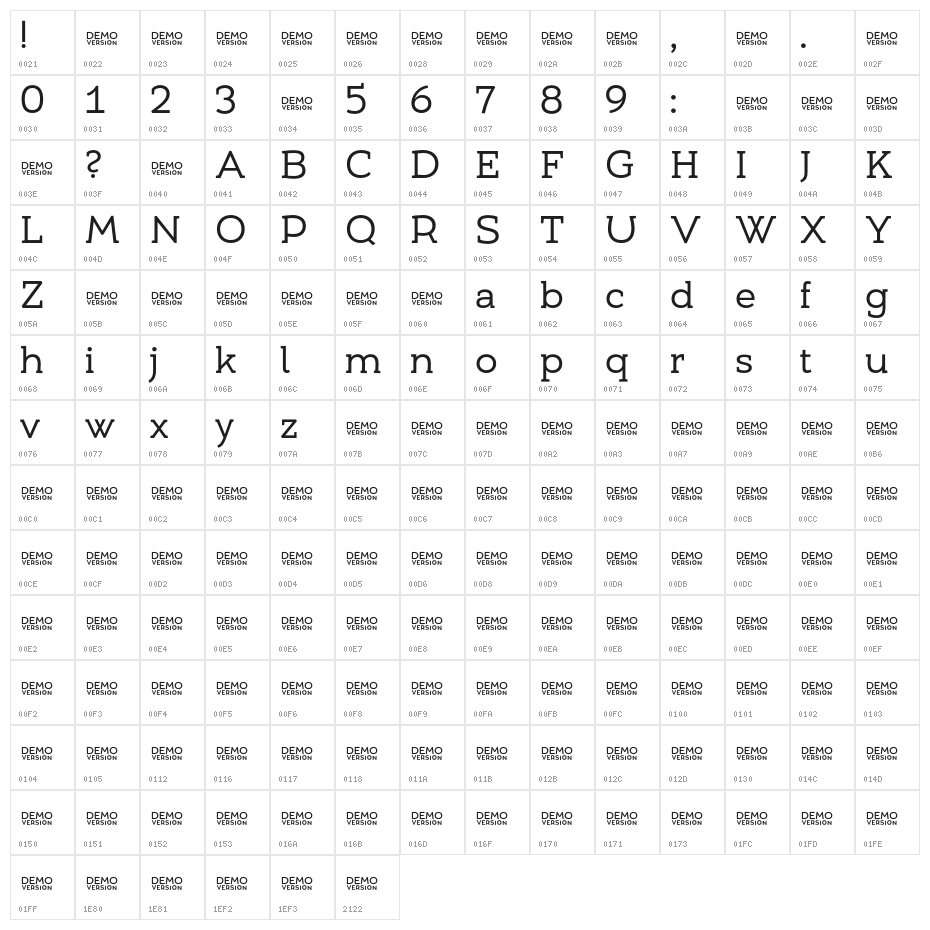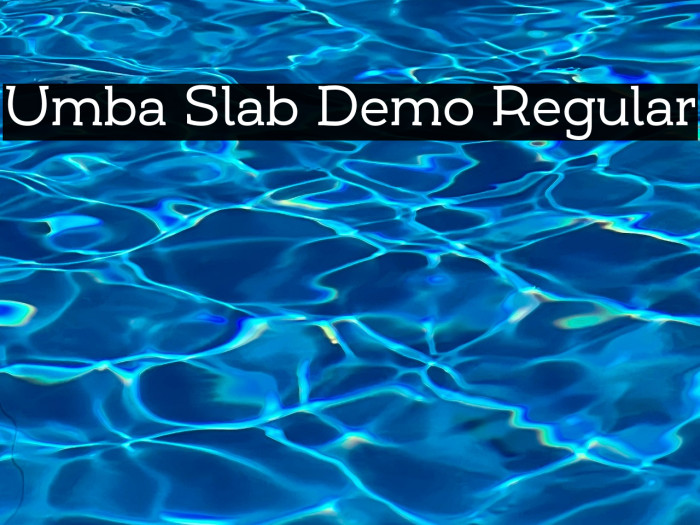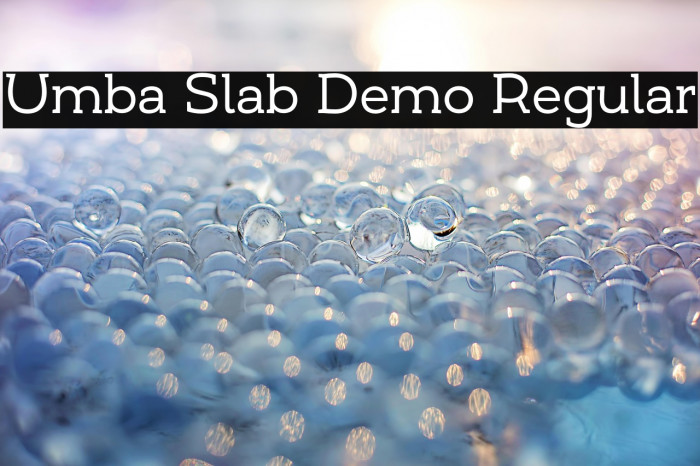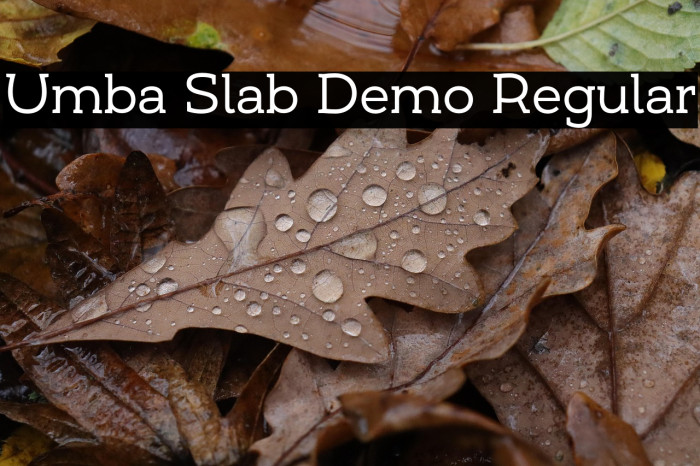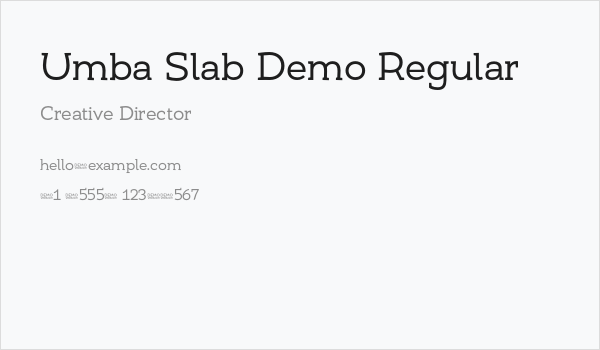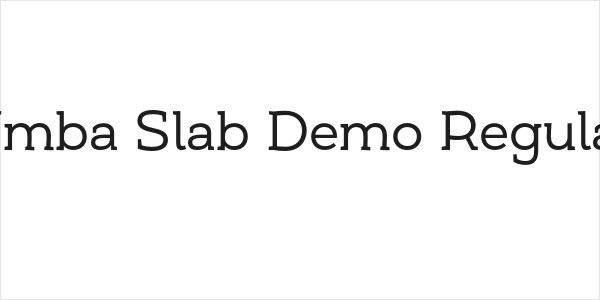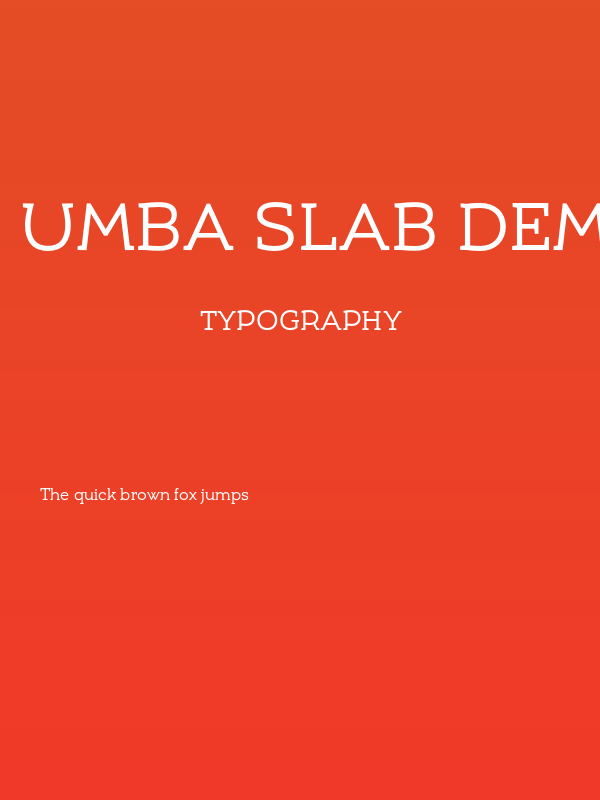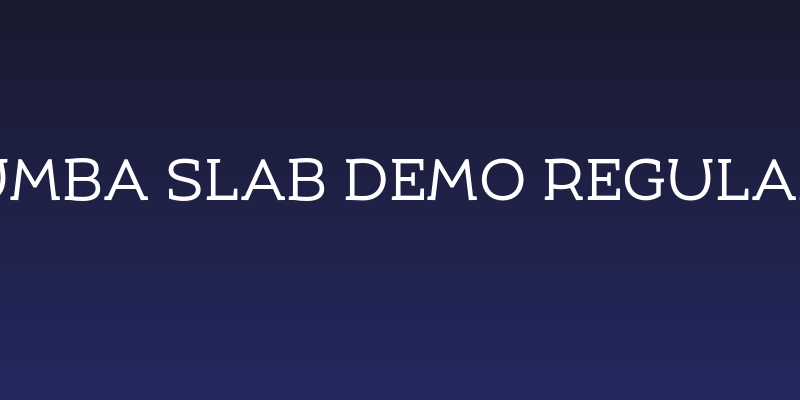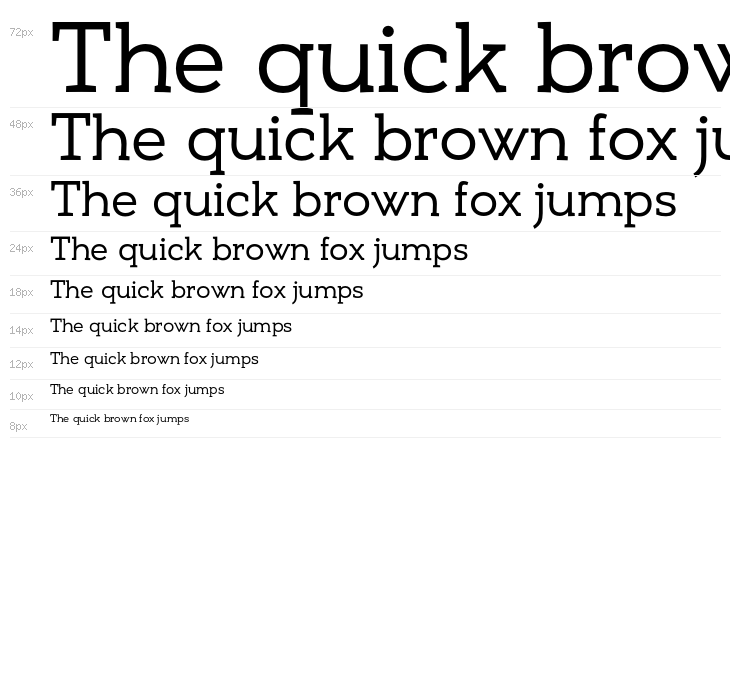
Umba Slab Demo Regular Font
Umba Slab Demo Regular Description
This font exhibits a modern slab serif style with a clean and structured appearance. The characters are well-defined with consistent stroke weights, giving it a balanced and professional look. The uppercase letters are bold and commanding, while the lowercase letters maintain a harmonious flow. The numerals are clear and easily readable, making them suitable for various applications. The special characters are distinct and integrate seamlessly with the rest of the typeface. Overall, this font combines traditional serif elements with a contemporary twist, making it versatile for both digital and print media.